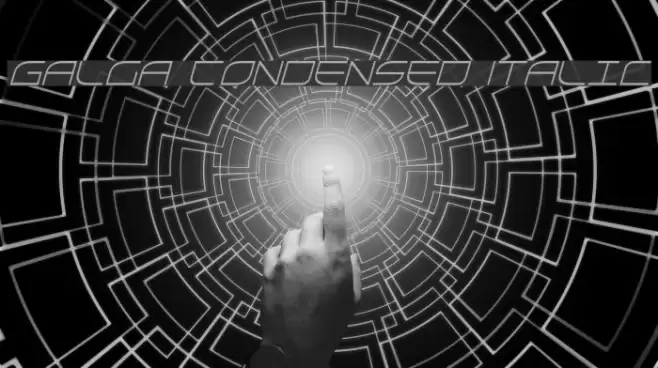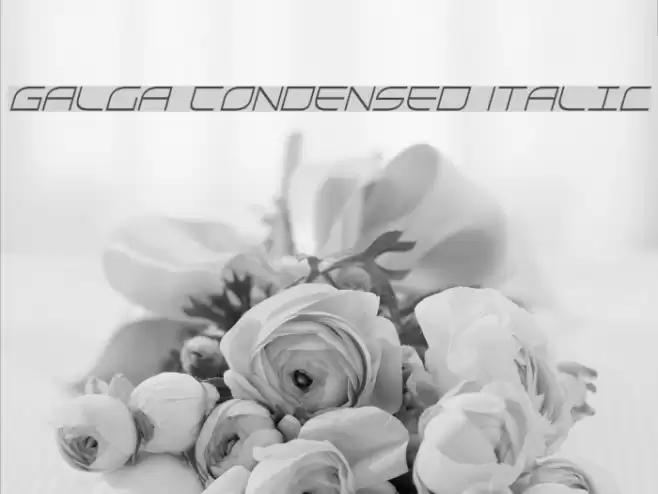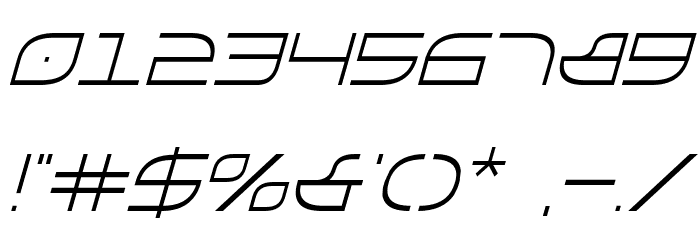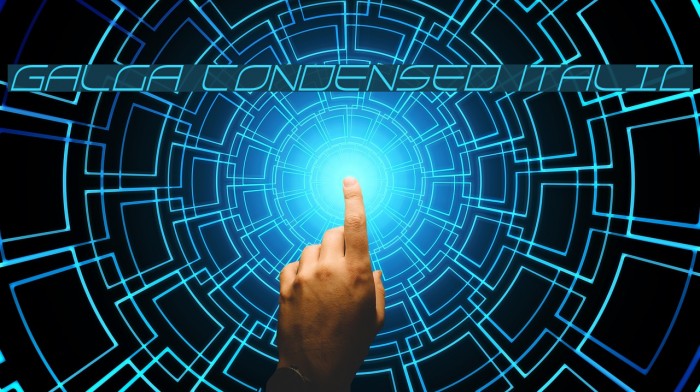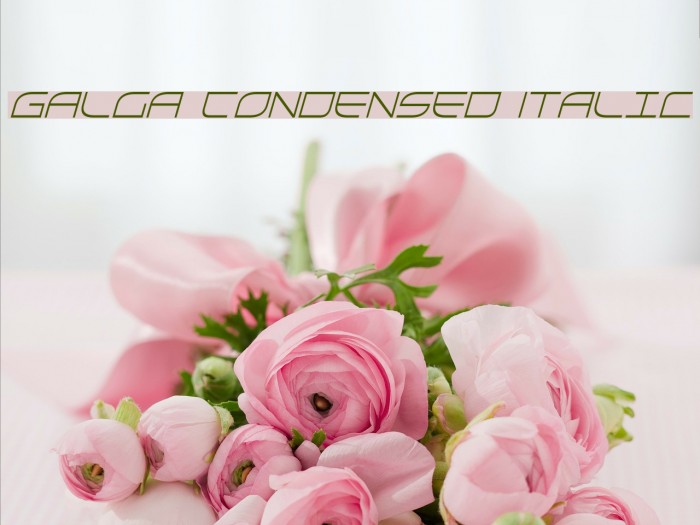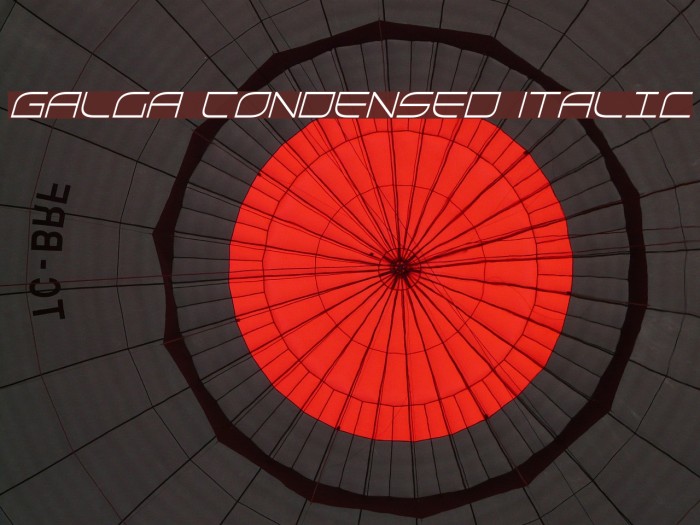
Galga Condensed Italic Font
Galga Condensed Italic Description
This font features a sleek, modern design with a condensed and italicized style. The characters are elongated and slightly slanted, giving a sense of motion and dynamism. The strokes are consistent in thickness, providing a uniform appearance across all characters. The geometric shapes and clean lines contribute to a futuristic and technical aesthetic. The font maintains readability while offering a unique and stylish look, suitable for contemporary design projects.
A sleek, modern, condensed italic font with a futuristic aesthetic from Sci-fi fonts.
- Proposed Projects: Ideal for tech branding, modern advertising, futuristic posters, and digital interfaces.
- Use Case: Headlines, Logos, Digital interfaces